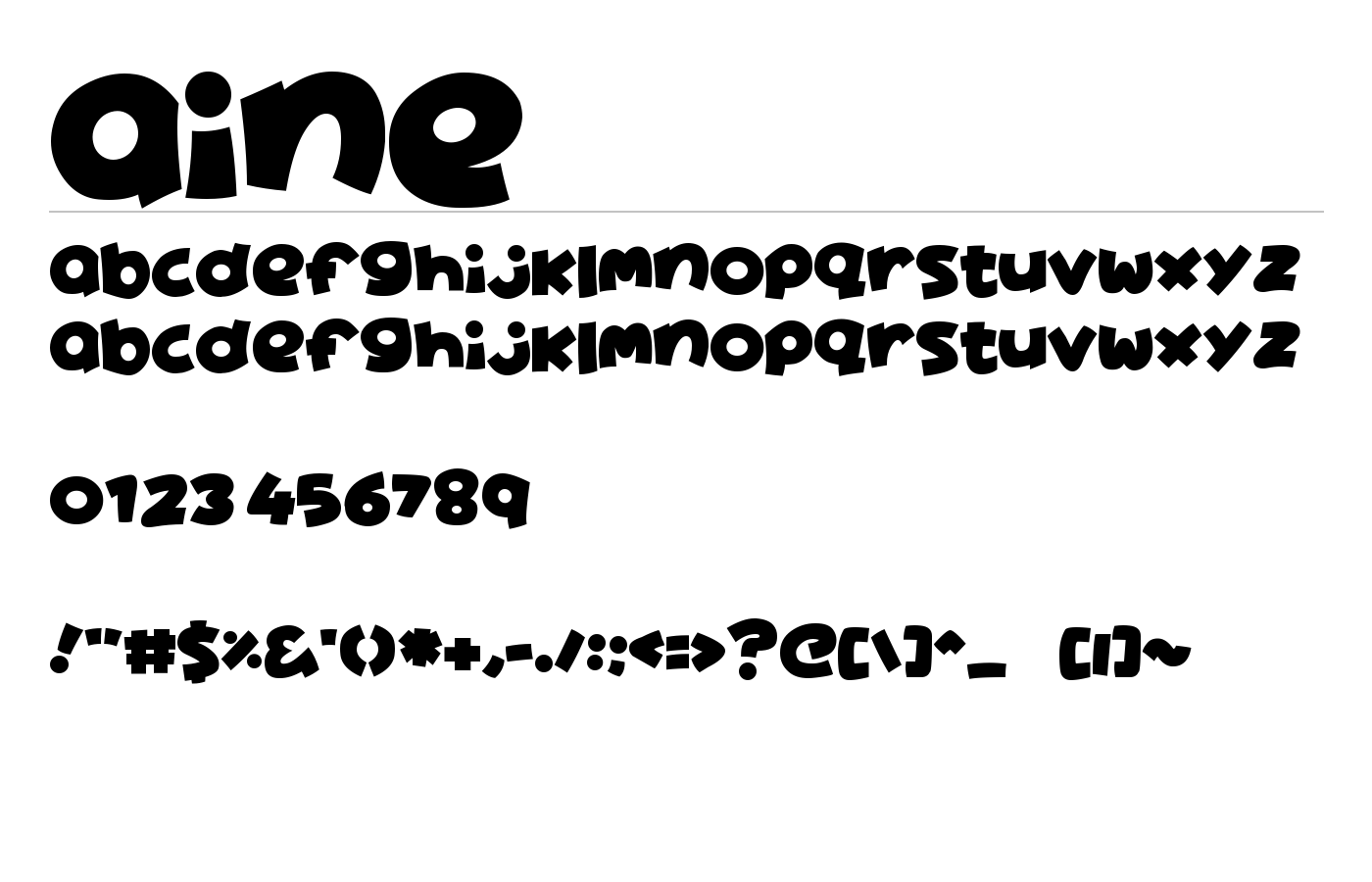
Aine is a bold, playful sans serif font with rounded, chunky letterforms that give it a friendly and approachable character. Its irregular shapes and lively style make it perfect for creative projects, children’s materials, and casual branding where a fun, informal vibe is desired. This font stands out in logos, posters, and headlines that need a lighthearted and energetic impression.
Aine Font